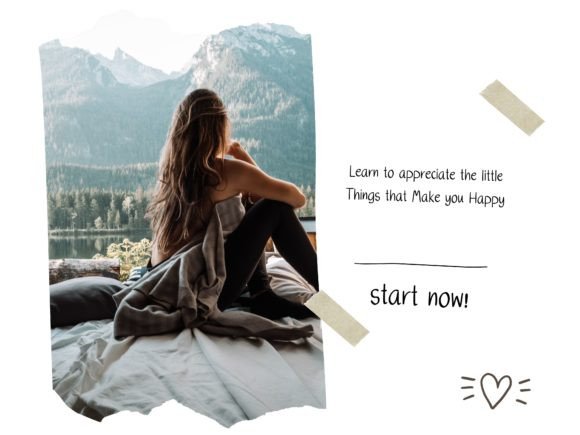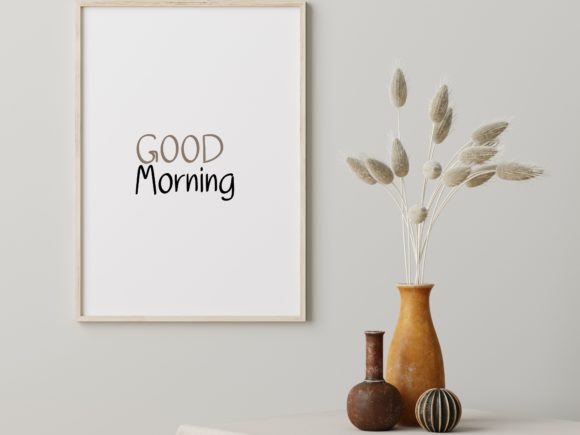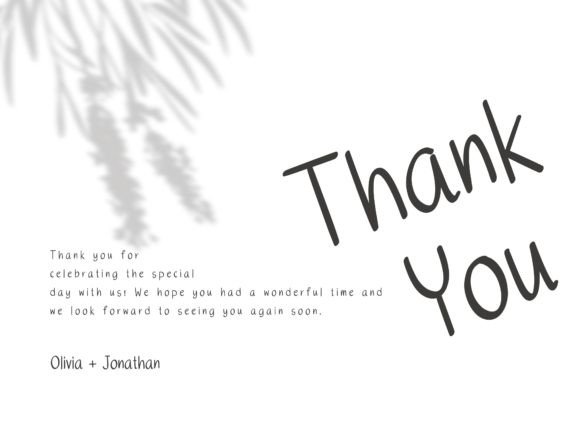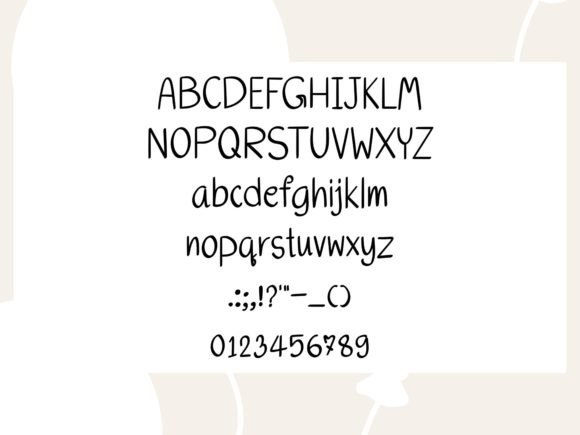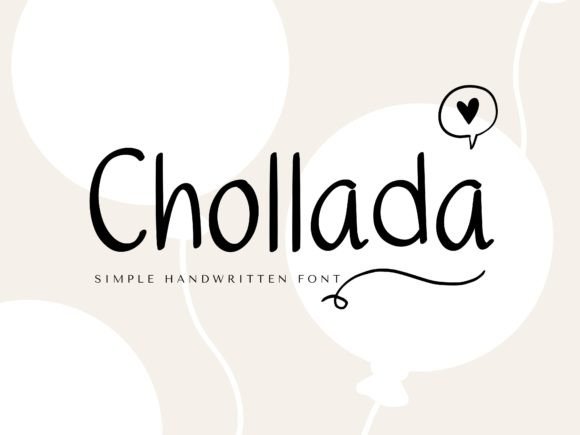
Discover the Versatility of Chollada Font: Elevate Your Designs and Crafts
Are you a designer, crafter, or DIY enthusiast looking for a font that can elevate your projects? Look no further than Chollada Font. This versatile and stylish font is perfect for a wide range of applications, from Cricut projects and logos to wedding invitations and social media graphics. In this article, we’ll explore the many uses of Chollada Font and how it can help take your designs to the next level.
What is Chollada Font?
Chollada Font is a modern and elegant font designed to add a touch of sophistication to your projects. Its clean lines, precise curves, and balanced proportions make it perfect for both digital and print applications. Whether you’re creating a logo, branding materials, or decorative items, Chollada Font is sure to impress.
Perfect for Cricut Projects
Cricut enthusiasts, rejoice! Chollada Font is a fantastic choice for your cutting machine projects. Its crisp and clear design ensures that your vinyl decals, iron-on designs, and paper crafts turn out beautifully. From custom signs and wall art to personalized gifts and decorations, Chollada Font is the perfect companion for your Cricut adventures.
Ideal for Logos and Branding
Establishing a strong brand identity is crucial for businesses, and Chollada Font can help. Its professional and modern look makes it suitable for logos, business cards, and other branding materials. Use Chollada Font to create a cohesive visual identity that reflects your brand’s values and personality.
Wedding Invitations and Stationery
Make your wedding invitations, save-the-dates, and stationery truly special with Chollada Font. Its elegant and refined design adds a touch of luxury to your wedding stationery, setting the tone for a memorable and stylish celebration.
Wall Decoration and Party Invitations
Chollada Font is also perfect for creating stunning wall decorations, party invitations, and event flyers. Its versatility allows you to experiment with different colors, textures, and designs, ensuring your creations stand out from the crowd.
Birthday Projects and Greeting Cards
Make your birthday projects and greeting cards more special with Chollada Font. Its playful and modern design adds a personal touch to your creations, making them perfect for friends, family, or clients.
Flyers, Brochures, and Presentations
Take your marketing materials to the next level with Chollada Font. Its professional and clean design ensures that your flyers, brochures, and presentations look polished and engaging, helping you effectively communicate your message.
Business Cards and Social Media Graphics
In today’s digital age, having a strong online presence is crucial. Chollada Font is perfect for creating business cards, social media graphics, and other digital assets that showcase your brand’s personality and style.
Procreate and Digital Art
Digital artists, rejoice! Chollada Font is a fantastic addition to your Procreate toolkit. Use it to create stunning artworks, illustrations, and designs that showcase your creativity and skill.
Planner Prints and Scrapbooking
Chollada Font is also perfect for planner prints, scrapbooking, and other paper crafts. Its elegant design adds a touch of sophistication to your creations, making them perfect for personal use or as gifts.
Wallpaper and Baby Shower Decor
Finally, Chollada Font is ideal for creating beautiful wallpaper, baby shower decorations, and other nursery decor. Its playful and modern design adds a touch of whimsy to your creations, making them perfect for welcoming a new baby.
In conclusion, Chollada Font is a versatile and stylish font that’s perfect for a wide range of design and crafting applications. Its clean lines, precise curves, and balanced proportions make it suitable for both digital and print projects. Whether you’re a designer, crafter, or DIY enthusiast, Chollada Font is sure to elevate your creations and help you achieve your design goals.